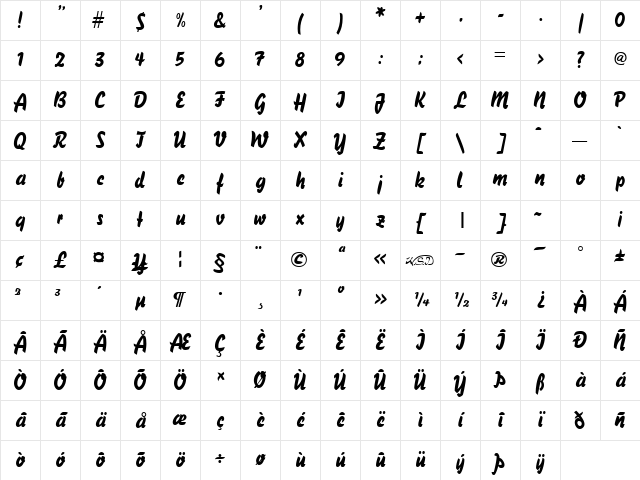
Handybrush normal Free Font
Handybrush normal
Style: normal
Handybrush Family
Handybrush normal
Design Context for Handybrush
Handybrush flows with the natural rhythm of handwritten lettering, making it ideal for designs that call for warmth and personal expression.
Font Pairing: Combine Handybrush with a simple geometric sans for maximum contrast - the tension between flowing curves and clean structure is a classic typographic pairing.
Pro Tip: Use Handybrush for short runs of text - names, titles, or taglines. Extended body copy in script faces tires the eye quickly.